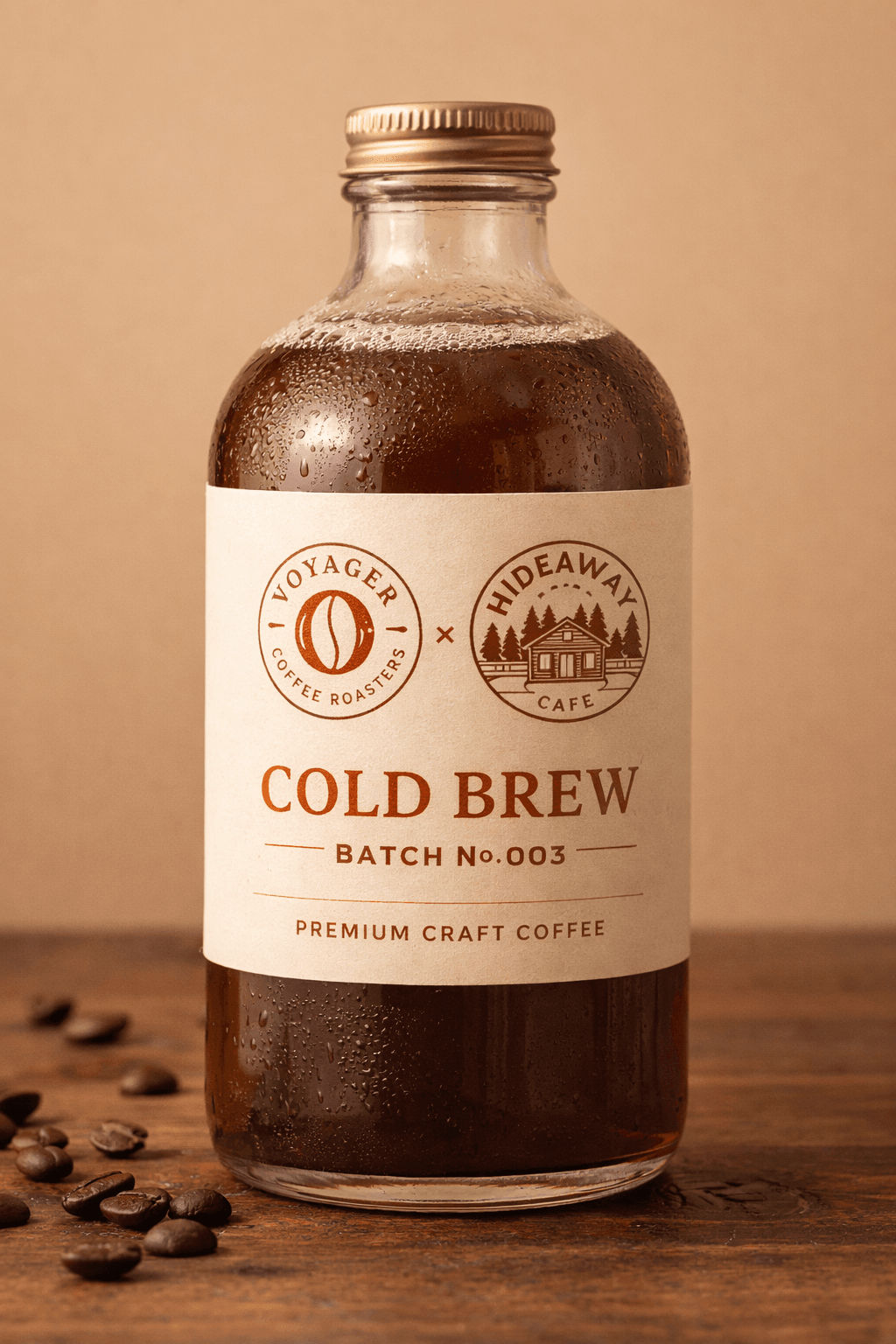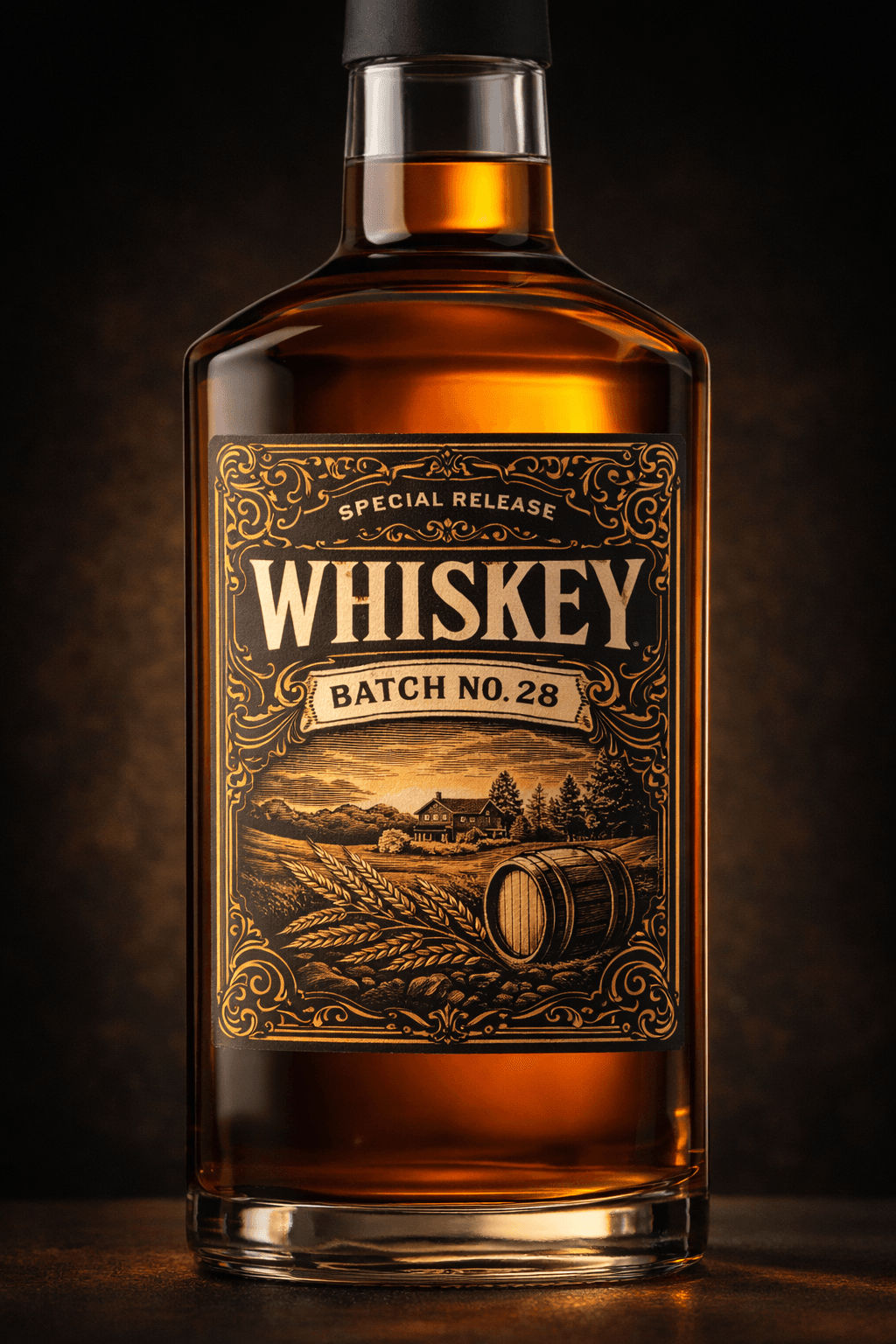
50 Best AI Bottle Label Prompts for Limited Edition
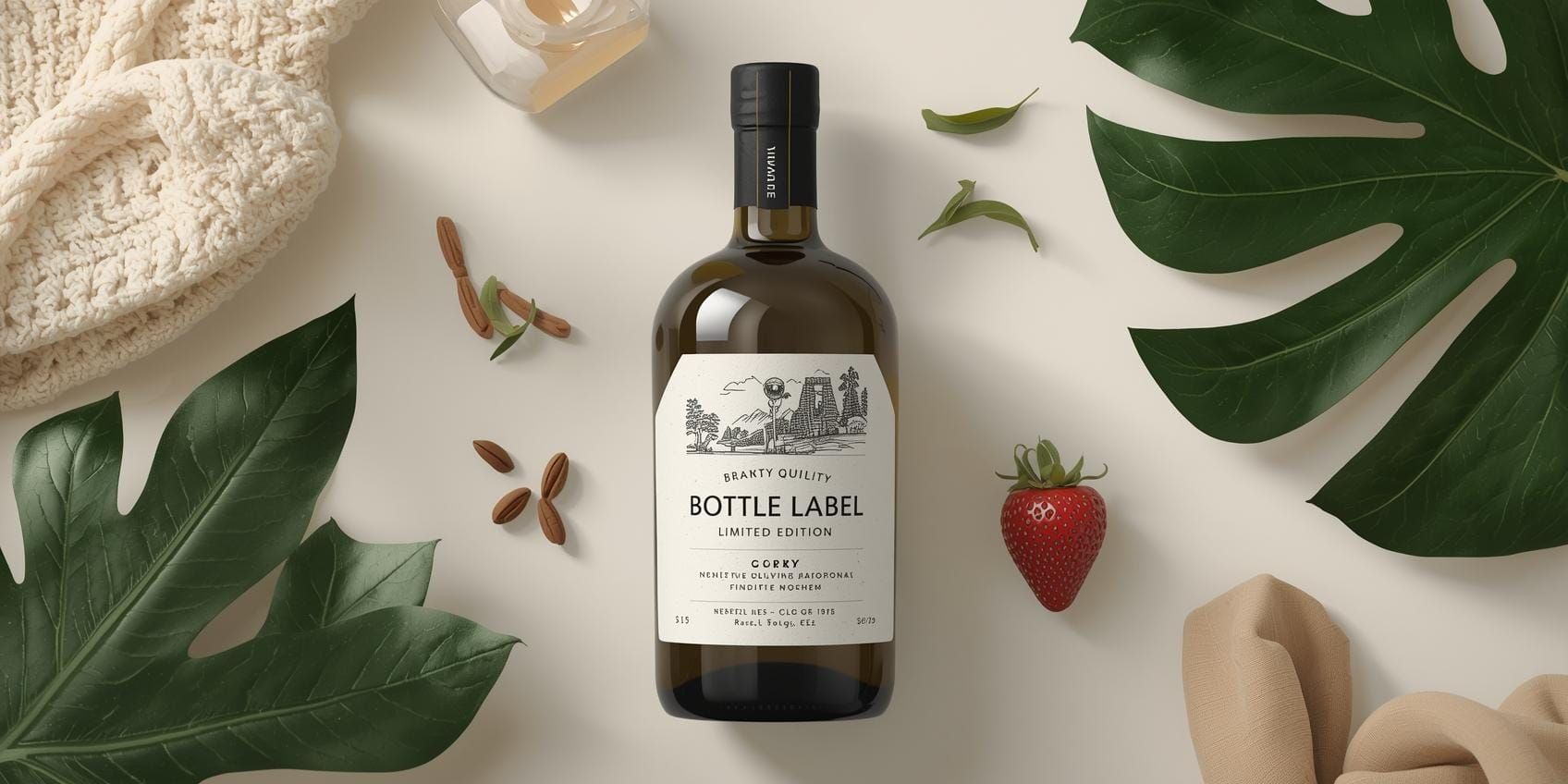
Limited editions live or die by packaging. It’s the first thing people see, the reason they pick one bottle over another, and the detail that makes a drop feel collectible. The fastest way to explore strong concepts is with AI bottle label prompts, but the trick is getting results that feel consistent, premium, and on-brand. Random prompts create random labels.
This guide gives you 50 AI bottle label prompts you can copy and tweak, plus a simple system for keeping typography to make your brand look premium, layout, and color consistent across a limited edition series.
Why AI Bottle Label Prompts Work Best for Limited Edition Drops
Limited editions need speed and variety. You want multiple directions fast, then you refine one winner. AI bottle label prompts help you:
- explore 10-20 concepts quickly
- test visual themes for a series (flavors, seasons, collabs)
- create consistent variations (same layout, new artwork)
- align teams faster (everyone reacts to visuals, not descriptions)
The goal isn’t to print the first output. The goal is to generate options, then art-direct the best one.
How to Write AI Bottle Label Prompts that Stay Consistent
Before the prompt list, lock a “label recipe.” This is what makes AI bottle label prompts repeatable.
A simple label recipe for AI bottle label prompts (copy this)
- Bottle type: (wine, soda, cold brew, kombucha, spirits, water)
- Label shape: (rectangular, wrap-around, oval, die-cut, neck label)
- Print finish: (matte paper, glossy, soft-touch, embossed, foil accent)
- Style: (minimal luxury, retro, modern craft, gothic, futuristic)
- Layout rules: where the logo goes, where the flavor goes, where the badges go
- Colors: base + accent + background
- Artwork theme: (botanical, celestial, geometric, collage, illustration)
When you keep the recipe stable, your AI bottle label prompts produce a cohesive collection.
What to Include Every Time for AI Bottle Label Prompts
To get stronger outputs, include these terms inside your AI bottle label prompts:
- “print-ready label mockup” or “flat label design”
- “clear hierarchy” and “high contrast typography”
- “space for brand name, flavor name, volume, and small details”
- “consistent grid, aligned margins”
- “no spelling errors, no random text, no watermark” (helpful instruction)
If you’re using the output for inspiration, you can ask for “blank title area” to avoid messy text rendering.
50 AI Bottle Label Prompts for Limited Edition
Use these AI bottle label prompts as a starting point. Replace the bracketed sections with your brand details.
1. Minimal luxury AI bottle label prompts (clean, premium, shelf-ready)
- Minimal luxury limited edition bottle label, soft-touch matte paper, thin gold foil border, warm white background, clean serif + neutral sans, space for brand name and batch number.
- Monochrome premium bottle label concept, black and warm gray, high contrast type, centered layout, small seal badge “Limited Run,” minimal geometric icon.
- Quiet luxury label design, ivory background, charcoal typography, subtle emboss texture, small foil accent on logo only, modern editorial layout.
- Modern premium label with wide margins, calm negative space, small decorative linework, minimal icons, consistent grid, limited edition stamp area.
- Luxury apothecary label, matte paper, subtle pattern background, refined serif headline, clean sans body, small ingredients panel, premium feel.
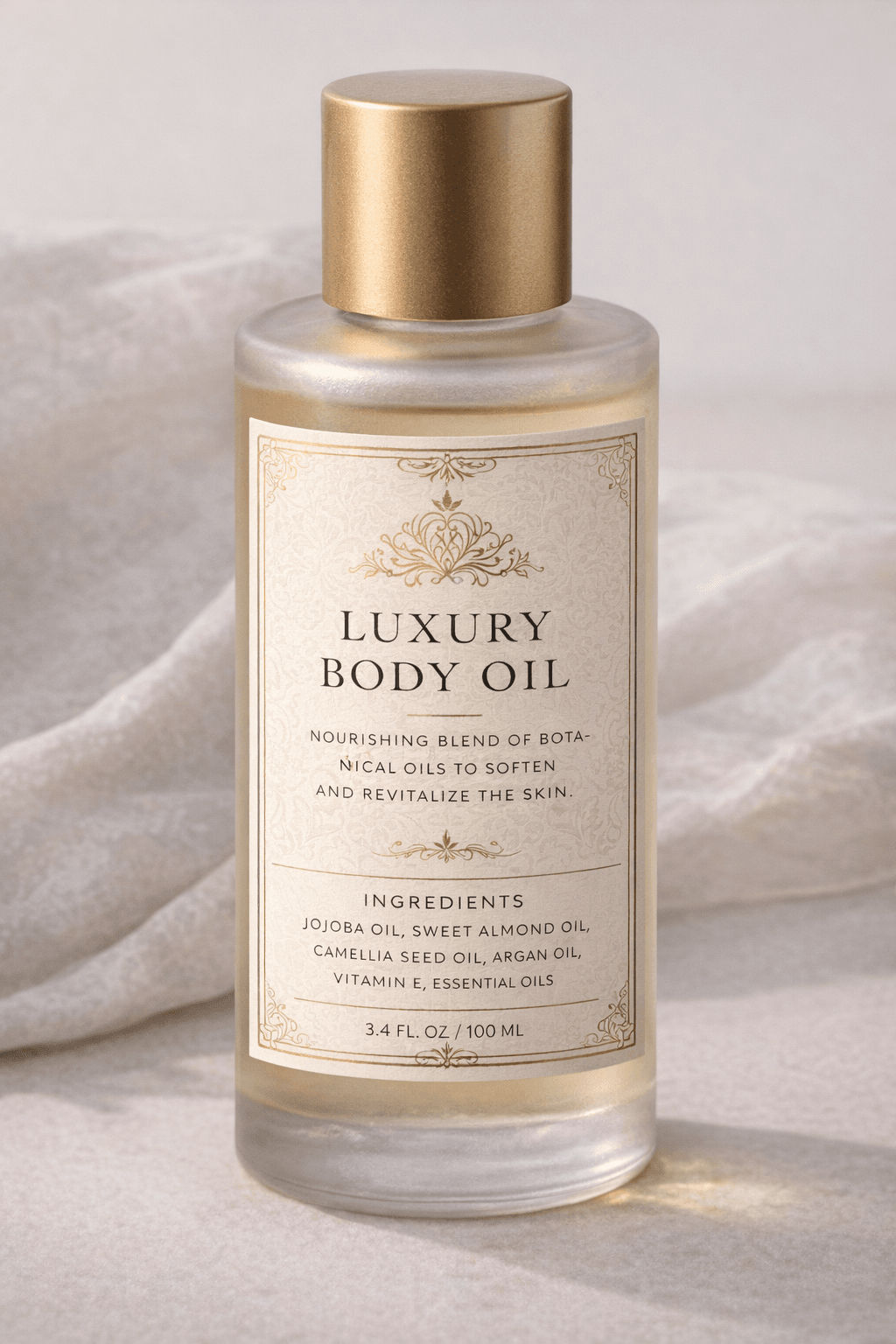
2. Modern craft AI bottle label prompts (specialty beverages, boutique brands)
- Craft beverage label design, hand-drawn illustration style, two-color palette, bold flavor name, small story paragraph area, limited edition batch badge.
- Modern craft bottle label, textured paper look, simple illustrated motif, friendly typography, clean hierarchy, space for barcode and recycling marks.
- Small-batch cold brew label, modern sans wordmark, minimalist coffee plant line art, black + cream + copper accent, batch number area.
- Kombucha limited edition label, bright but controlled palette, playful illustration, clean grid, bold flavor title, modern craft vibe.
- Natural sparkling drink label, botanical illustration, soft gradients, simple layout, premium craft look, “Seasonal Drop” badge.
3. Retro and nostalgic AI bottle label prompts (collectible, fun, eye-catching)
- Retro limited edition soda label, 70s color palette, bold curved typography, halftone texture, vintage badge, centered brand name.
- Vintage liquor label concept, ornate frame, engraved illustration style, deep navy and cream, old-world type, limited edition ribbon banner.
- 90s throwback label, bright neon accents but clean grid, chrome-inspired title area, geometric shapes, limited edition sticker look.
- Mid-century modern label, simple shapes, muted tones, clean sans + serif mix, playful but premium.
- edition number included and consistent
- space reserved for barcode, volume, legal text (if needed)
This helps you turn AI bottle label prompts into real packaging directions.
Limited edition packaging is about consistency with a twist. Use these 50 AI bottle label prompts to explore styles fast, then lock a label recipe so every variation feels collectible and intentional. When your layout rules stay stable, your drop looks premium before anyone even reads the flavor.